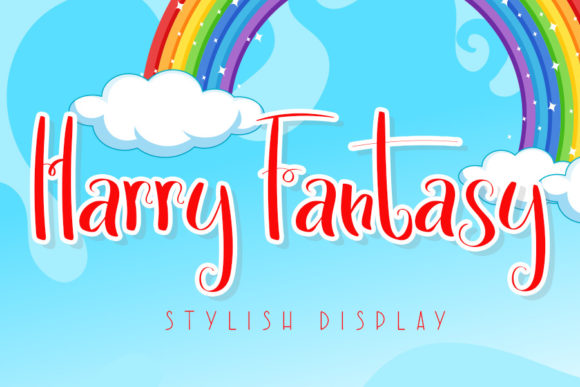
Introduce yourself to the enchanting world of Harry Fantasy – an extraordinary calligraphy font that will captivate your designs and enchant your audience. Crafted meticulously by the renowned inworkID, Harry Fantasy is a masterpiece that embodies the essence of contemporary elegance with its impeccable hand-lettered style.
Indulge in the limitless possibilities offered by Harry Fantasy, a versatile font that caters to a myriad of design requirements. Whether you seek to create captivating logos, enchanting branding, or simply add a touch of whimsical flair to your projects, Harry Fantasy emerges as the perfect choice.
Unleash your creativity and discover the boundless potential that lies within Harry Fantasy's graceful curves and captivating strokes. Its alluring script design will lend an air of sophistication and charm to any creation, effortlessly evoking emotions and leaving a lasting impression.
Step into the magical realm of Harry Fantasy today and elevate your designs to unprecedented heights. Let its enchanting aura weave its spell on your audience, creating an unforgettable experience that will make your creations stand out from the ordinary.